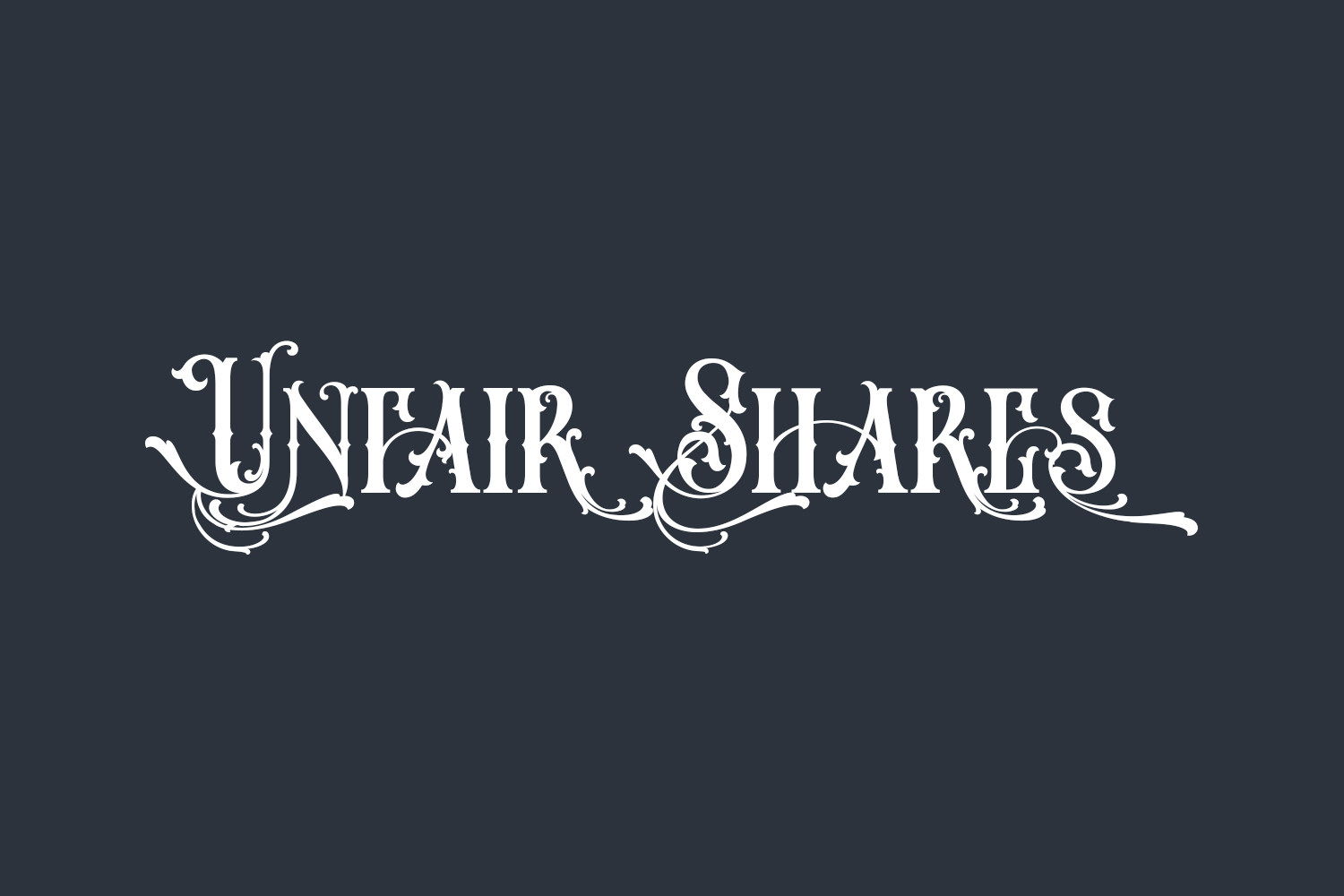
Unfair Shares Free Font is a remarkable blackletter font designed to leave a lasting impression with its stylish attributes. Employ it for product packaging, branding, or any projects demanding bold and audacious typography. Unfair Shares Free Font is free for personal use only. Please purchase the full version for commercial use.